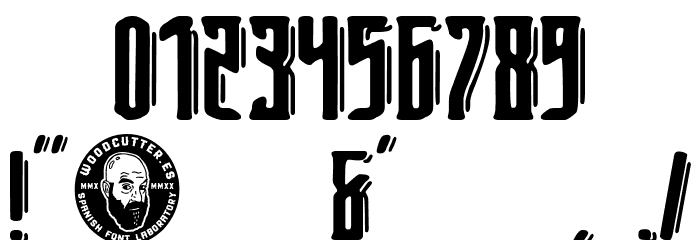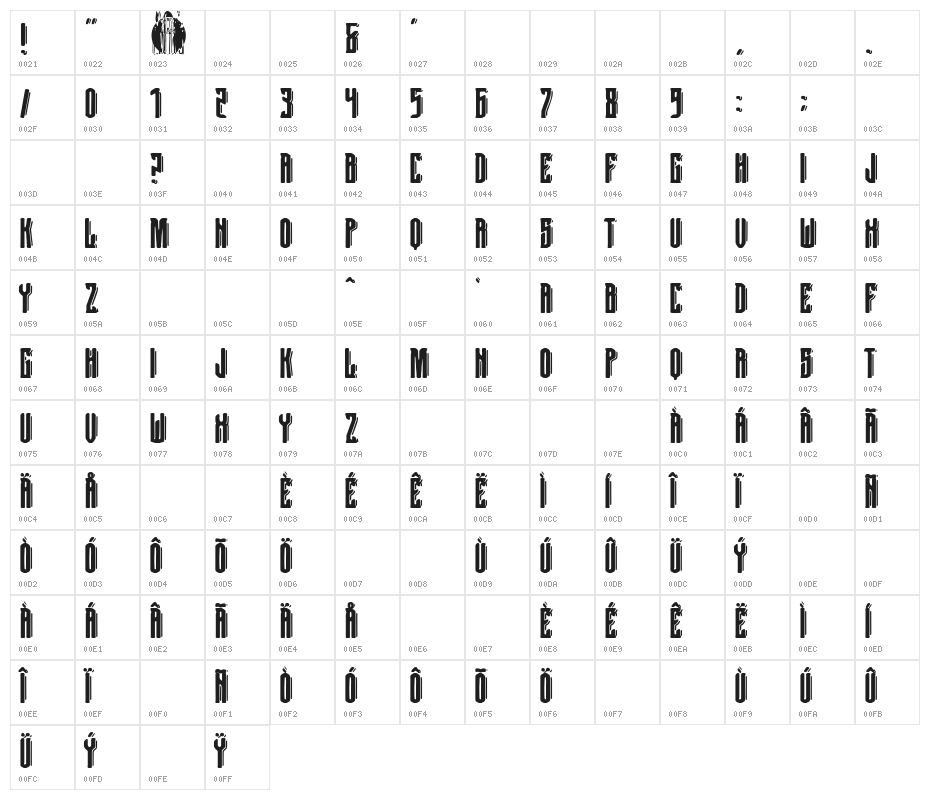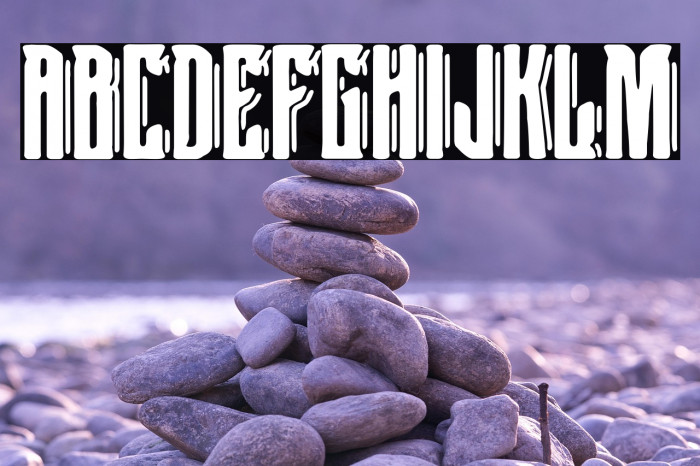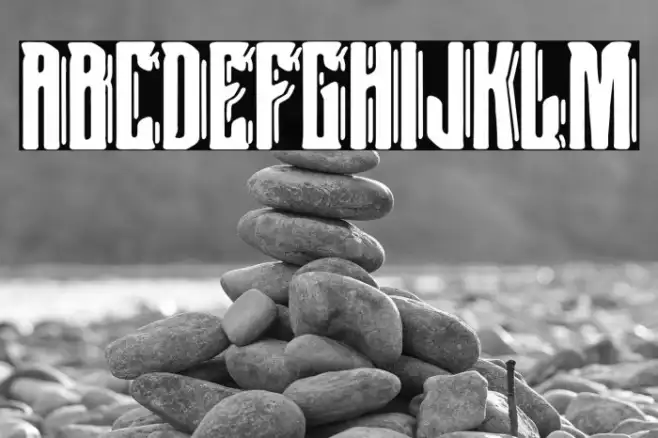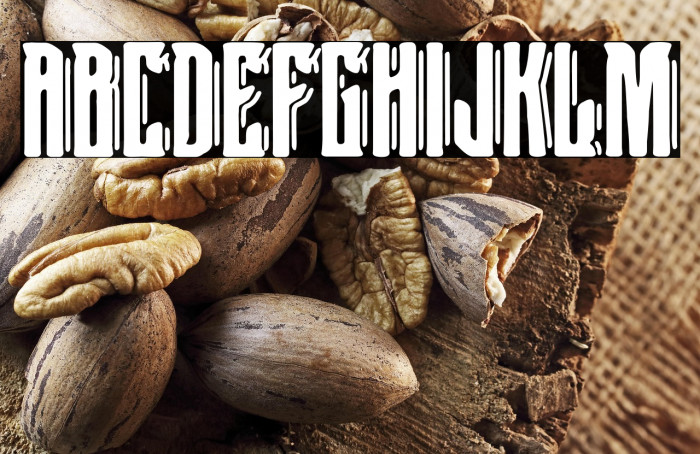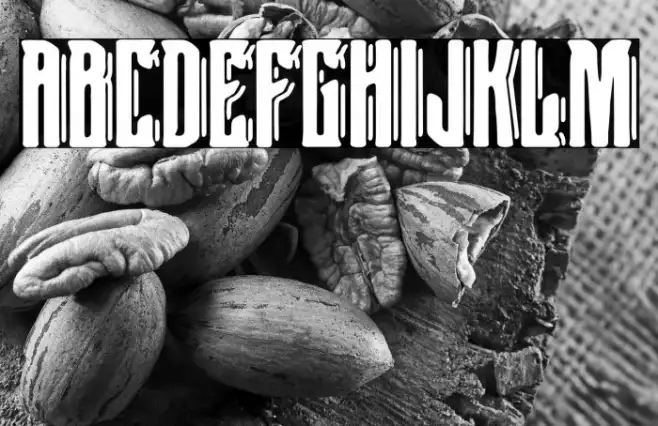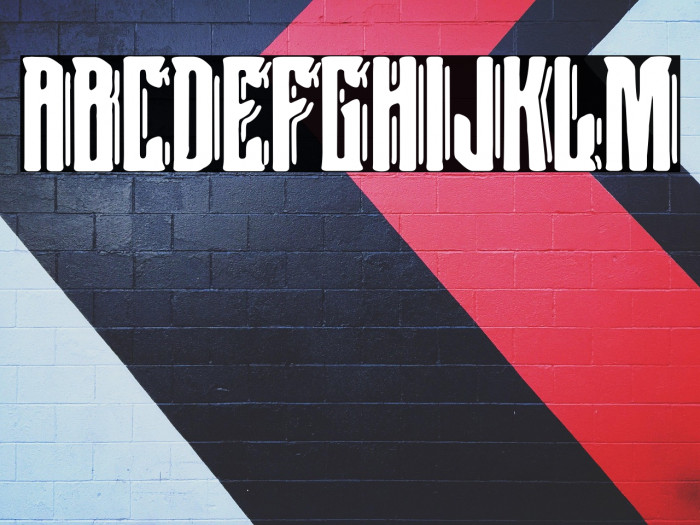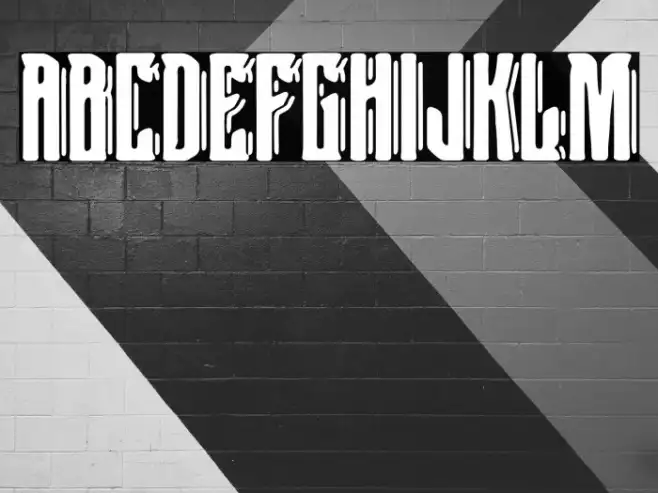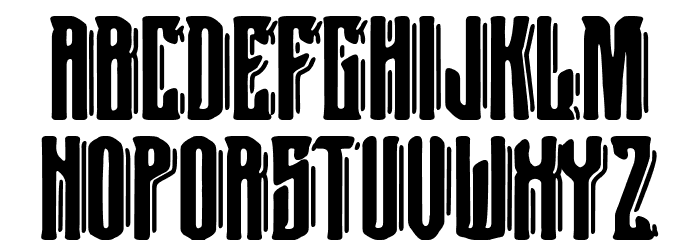
España Imperial Font
España Imperial Description
This font features a bold and striking design with a distinctly decorative and vintage flair. The characters are tall and narrow, with a unique shadow effect that gives them a three-dimensional appearance. The uppercase letters are particularly prominent, with sharp angles and a strong presence. The numbers and special characters maintain the same bold style, ensuring consistency across all elements. This font is ideal for making a statement, capturing attention with its dramatic and impactful look.